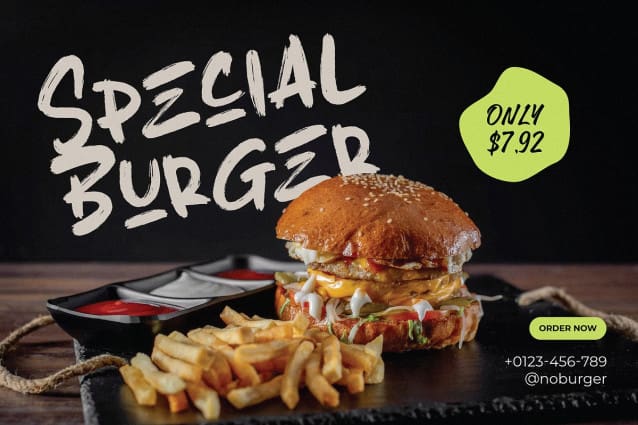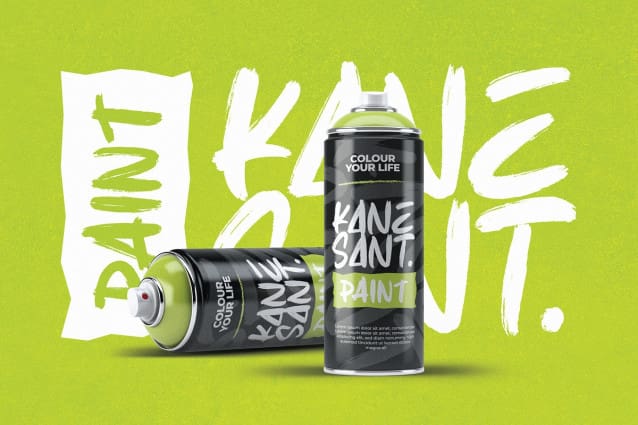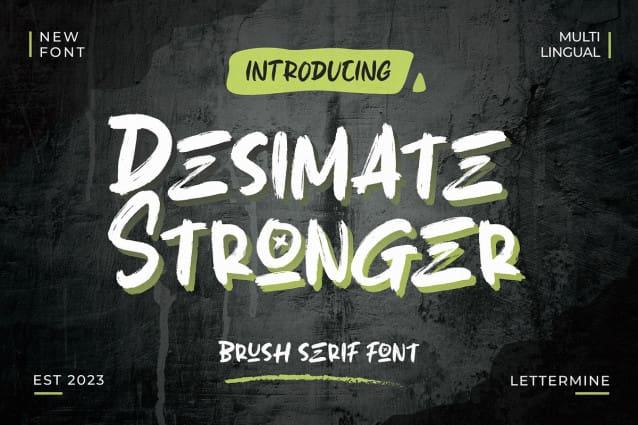
Desimate Stronger Font
Desimate Stronger Font, our meticulously crafted brush serif font. Take your designs to the next level, creating the perfect balance between sophistication and strength.
🖌️ Brushed Perfection: Immerse yourself in the artistic strokes of Desimate Stronger, where each character is a masterpiece in itself. The brush serif design adds a touch of handcrafted elegance to your projects.
💡 Versatile Elegance: Explore a world of possibilities with alternative characters and ligatures, giving you the flexibility to create unique and captivating designs. Whether it’s headers, logos, or invitations, Desimate Stronger adapts seamlessly to your creative vision.
🔠 All Caps Appeal: Make a bold statement with the All Caps feature, perfect for headlines and attention-grabbing elements. Desimate Stronger ensures your message is not just seen but remembered.
🌐 Multilingual Magic: Break language barriers effortlessly with DesimateStronger‘s multilingual support. Your designs can now speak to a global audience, delivering a cohesive and impactful message in any language.